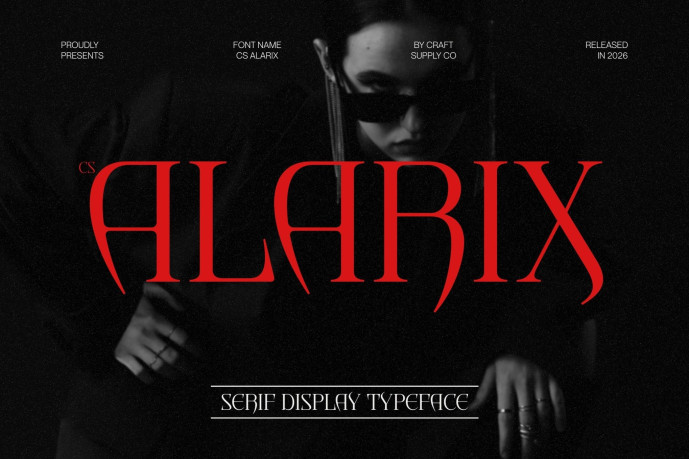
Alarix Font
Designer: Craft Supply Co.
Alarix Font – Modern Gothic Serif Display with Bold Edge Modern Serif with Gothic Influence This is a modern serif font that display blends contemporary design with a striking gothic character. Featuring pointed edges and sharp details, this typeface delivers a bold and dramatic presence that immediately captures attention. It is crafted for designers who want typography that feels powerful, intense, and visually unforgettable.
Sharp Details with Strong Personality The distinctive pointed terminals and angular forms create a sense of tension and strength within each letterform. These sharp characteristics give the typeface a dark and mysterious tone while maintaining clarity and structure. The result is a font that feels aggressive yet refined, perfect for expressive and impactful designs.
Contemporary Style with Dark Atmosphere This font balances gothic inspiration with modern design sensibilities, ensuring it feels fresh and relevant. Its clean construction and confident proportions allow it to perform beautifully across both digital and print media. This fusion of styles creates a dramatic visual voice that feels both modern and atmospheric.
Perfect for Bold, Horror, and Metal-Themed Projects From music artwork and posters to branding and experimental graphics, this font thrives in projects that demand a strong and edgy aesthetic. Its gothic influence and bold structure make it an ideal choice for designs seeking intensity, drama, and contemporary impact.